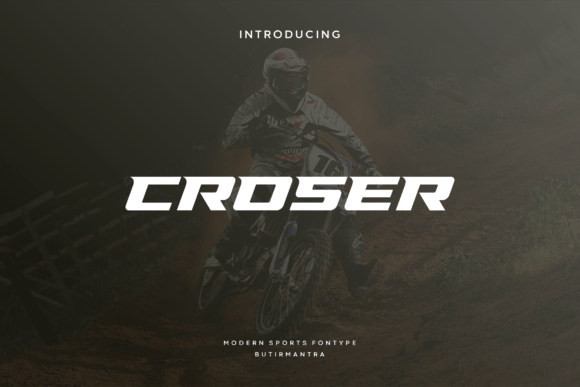
Journey into the world of speed and adrenaline with Croser Font, the ultimate display font designed to ignite your sports-themed designs. With its wide italics, modern cutouts, and a dynamic slant, Croser is the perfect font for capturing the essence of fast-paced action.
Imagine the roar of engines, the rush of wind, and the thrill of competition. Croser Font embodies the spirit of sports, bringing your designs to life with its bold and energetic personality. Whether you're creating logos, posters, or any other sports-related project, Croser is your go-to font for making a lasting impression.
Envision sleek car racing titles zooming across the screen, the intensity of running matches reaching new heights, and the exhilaration of cycling races pushing the limits. Croser Font captures the essence of these moments, evoking a sense of excitement and drive in every design.
Moreover, Croser Font's versatility extends beyond sports. Its modern and dynamic style adds a touch of sophistication to automotive game logos, monograms, and even contemporary dynamic text. Unleash your creativity and let Croser transform your designs into visually stunning masterpieces.
Choose Croser Font and unlock a world of possibilities. Its bold and confident character will elevate your designs, leaving an unforgettable impact on your audience. Join the league of creative enthusiasts who have embraced Croser Font and experienced the thrill of creating truly captivating designs.